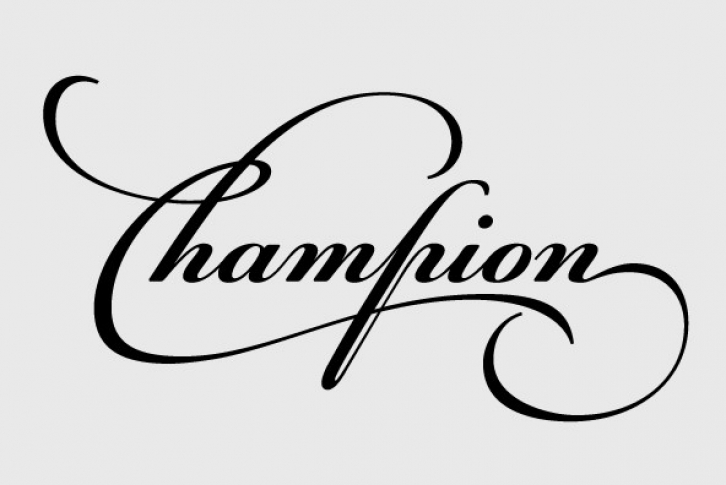
Champion Script Pro is the most advanced and powerful script ever made. It has received 2 awards of excellence from Granshan Awards 2010 and another one from the International Type Design Competition 2009. This typeface is based mainly on the manuscripts of the 18th century english calligrapher Joseph Champion. Developed over a period of two and a half years, each one of the 2 weights is loaded with 4300 glyphs, offering simultaneous support for all European languages based on the Latin, Greek and Cyrillic scripts. Furthermore, a wide selection of alternate forms and ligatures is included for all languages, in order to accommodate diverse design aesthetics. These alternates are either applied automatically through an advanced programming scheme, or manually through several opentype features. An attempt was made to design a contemporary script typeface with classic roots, by following certain guidelines, i.e. lowercase characters were designed so they are less inclined, have a higher x-height and are less condensed than the original. Several characters were stripped-off their connecting lines in order to enhance legibility. Four sets of alternate swashed capitals as well as a plethora of ornaments and frames (117) was included. Small caps and their alternate forms were designed to replace the capitals which disrupt the flow of text within a sentence with their extravagant swashes. All characters were carefully designed with the proper weight in order to sustain harsh printing conditions (on special papers), a situation which affects mainly the light connecting parts of calligraphic typefaces. Finally, it was programmed in such a way as to preserve handwriting qualities, by designing an extensive array of ligatures and alternate glyphs in all languages, never before released or incorporated within the same font.